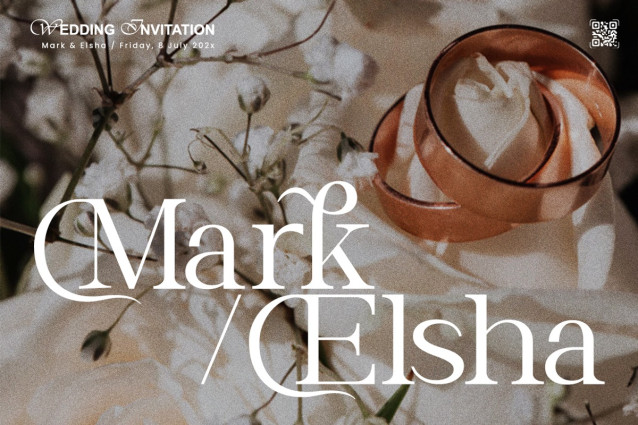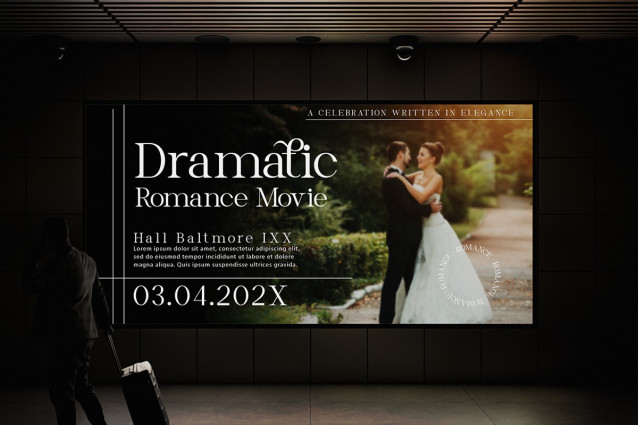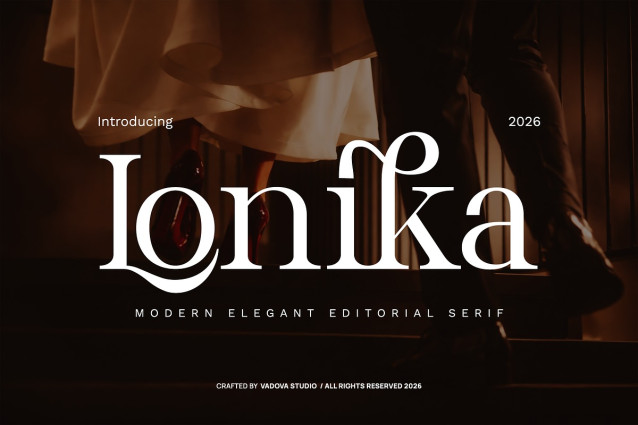
Lonika Font
Lonika Font is a refined modern editorial serif typeface designed to bring elegance, sophistication, and clarity to contemporary typography. With its graceful curves, high-contrast strokes, and carefully crafted ligatures, Lonika delivers a luxurious and polished look suitable for high-end design projects. The typeface blends classic serif traditions with modern editorial styling, making it perfect for magazine layouts, fashion branding, luxury packaging, and premium visual identities.
Lonika is ideal for projects that require refined typography and elegant visual presence. Its modern editorial style makes it perfect for fashion magazines, luxury branding, premium packaging, logo design, editorial layouts, beauty brands, advertising campaigns, and sophisticated visual identities.